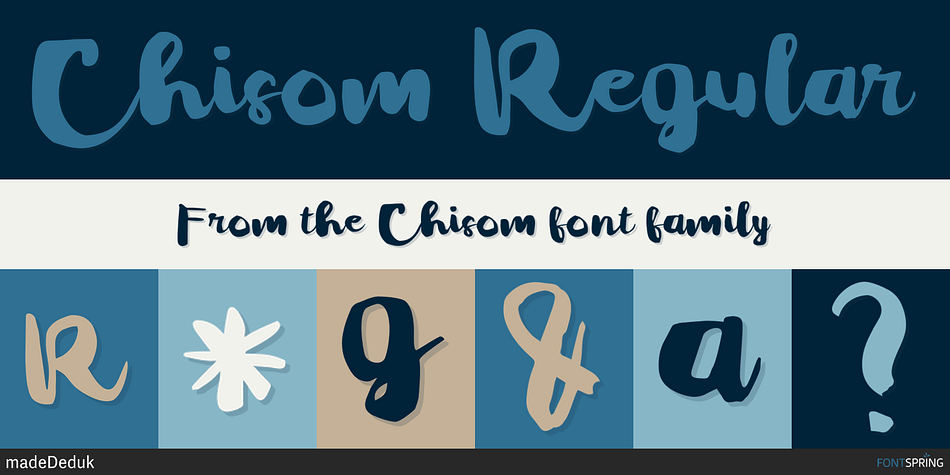
Chisom Regular
Designed by Suandana Ipandemade, Chisom is a brush script font family published by madeDeduk.
Really excited to introduce Chisom is a realistic brush script! Chisom will be perfect for all your designs project.